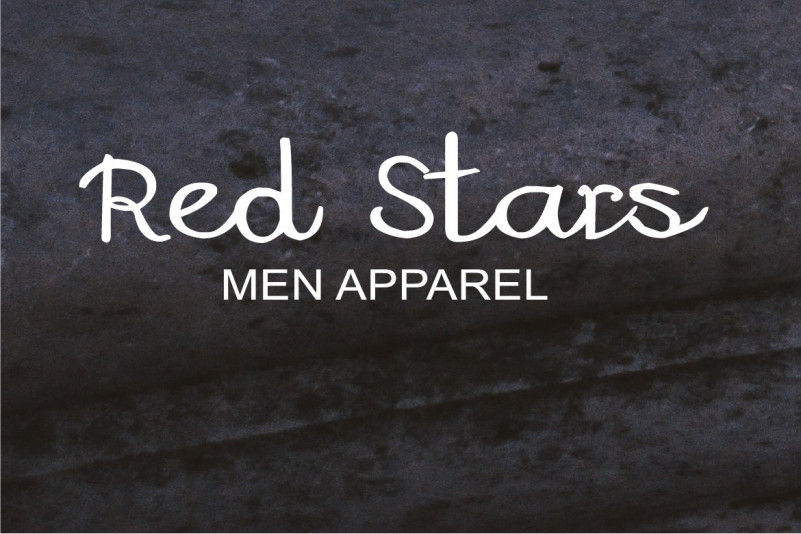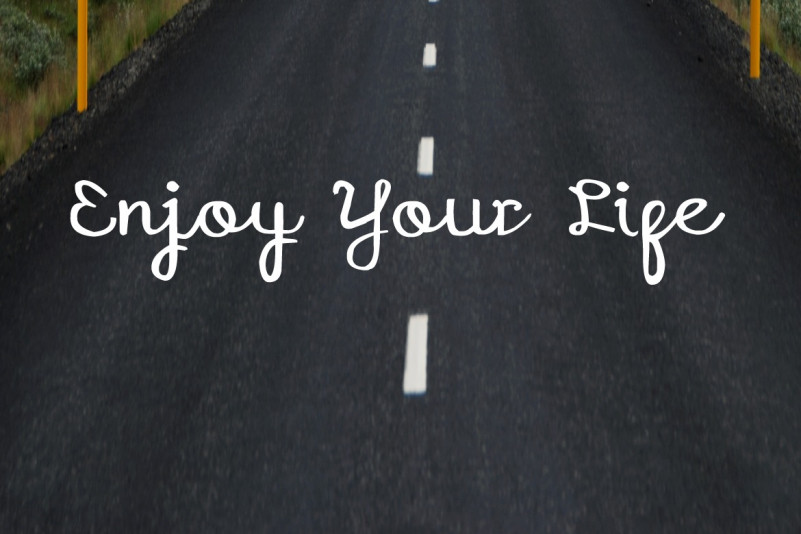
Quagralle Script Font
Quagralle is a modern, versatile font based on hand lettered. supports OpenType, you can access everything in your glyphs panel and make sure to turn on your ligatures or discretionary ligatures and check out all stylistic alternates.
Quagralle is the great choice for watermark on photography, signature or signature logo design, quotes, album cover, business card, and many other design project.